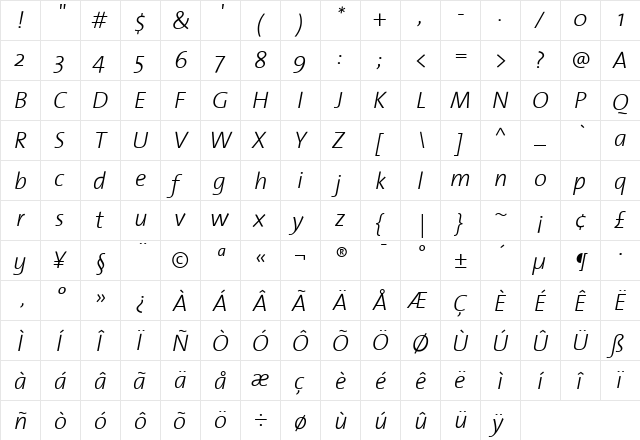
The Sans Light- Italic
Design Context for The Sans Light- Typeface
The Sans Light- is a composed and adaptable typeface that performs quietly and consistently across a wide range of design contexts. Its italic angle brings a sense of urgency and motion to the letterforms. Its slender proportions lend an understated elegance to any composition.
Pro Tip: Try The Sans Light- for annotation and caption copy alongside an upright companion — the contrast in angle creates a dynamic but ordered typographic system.